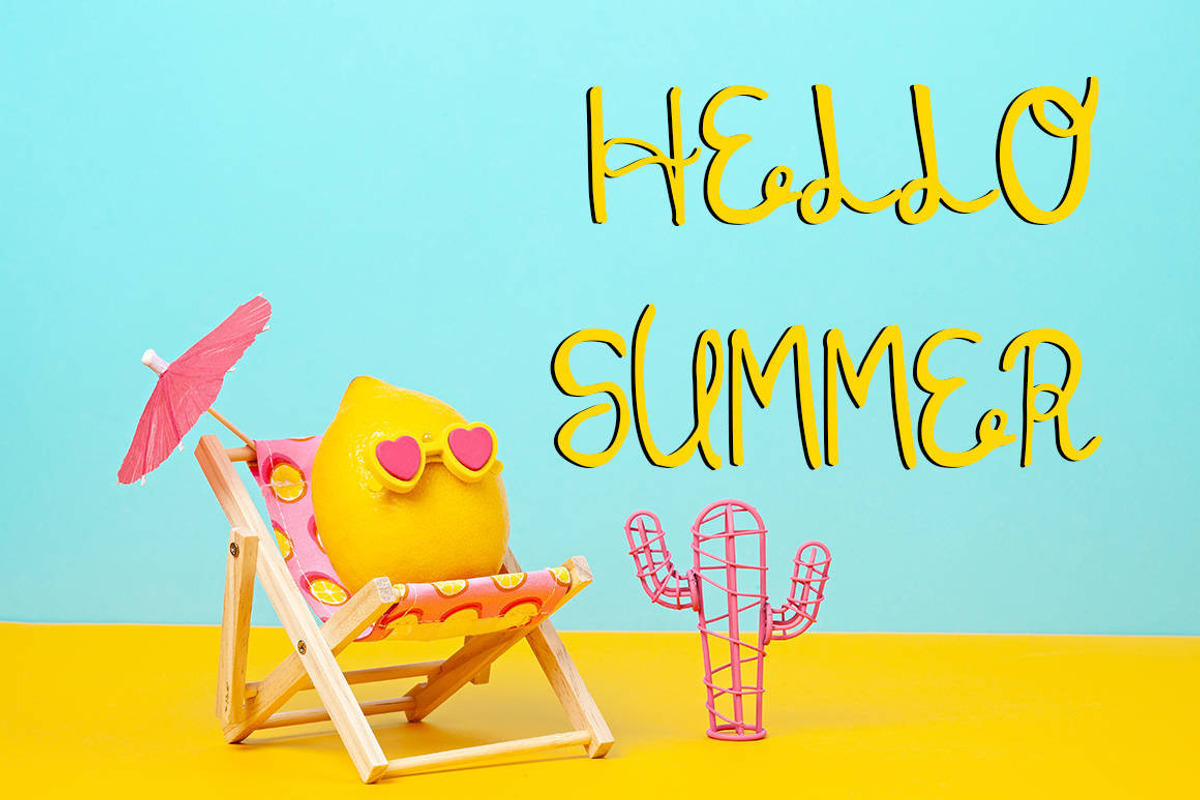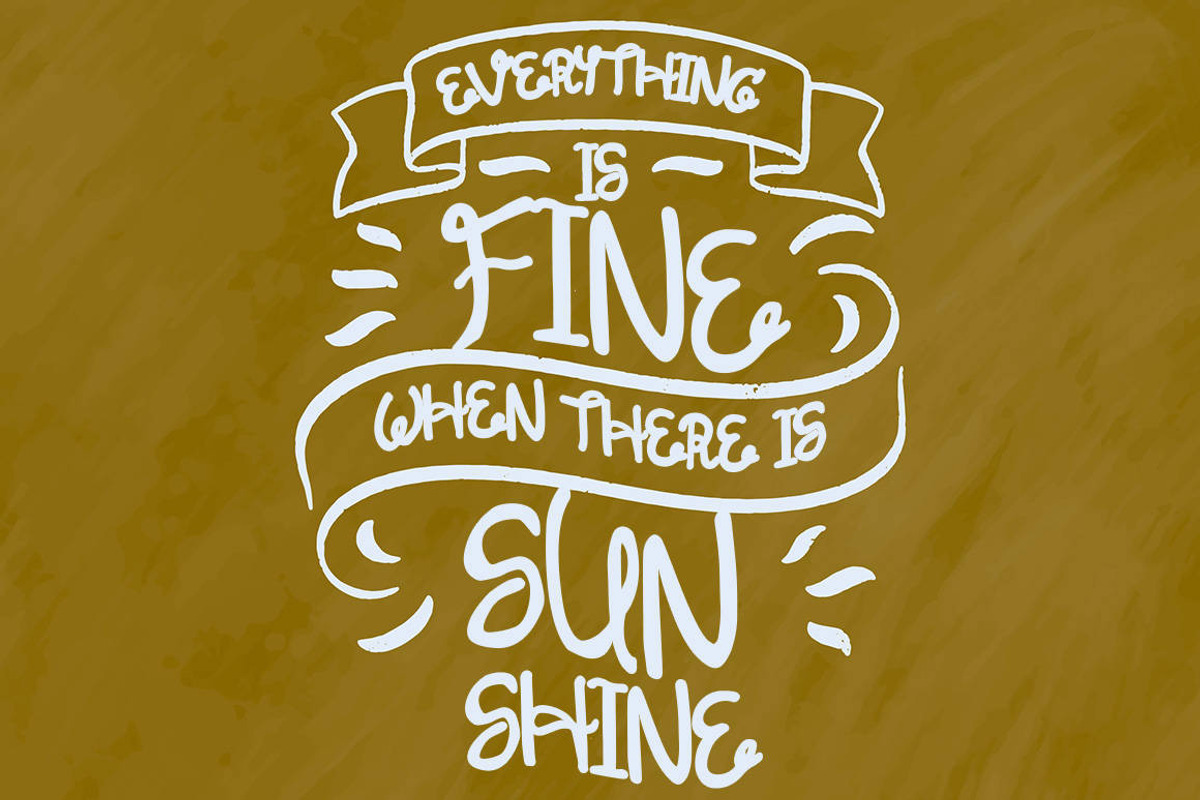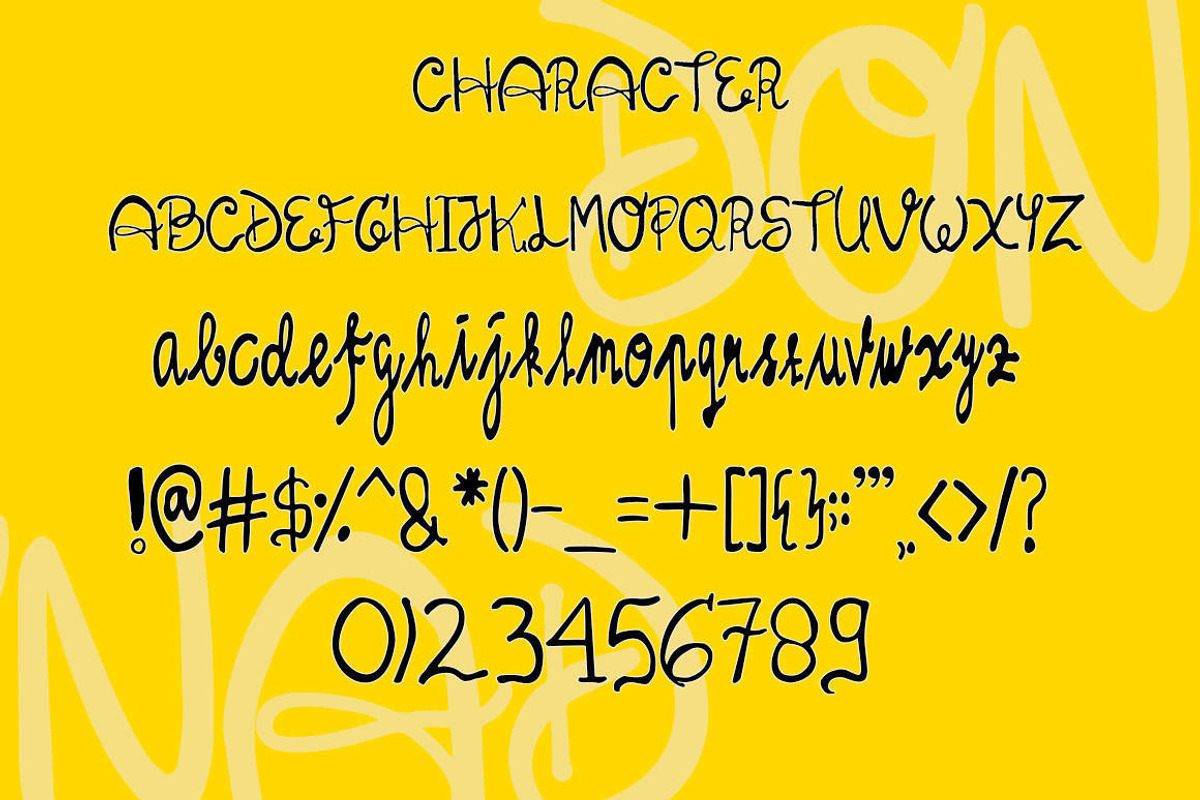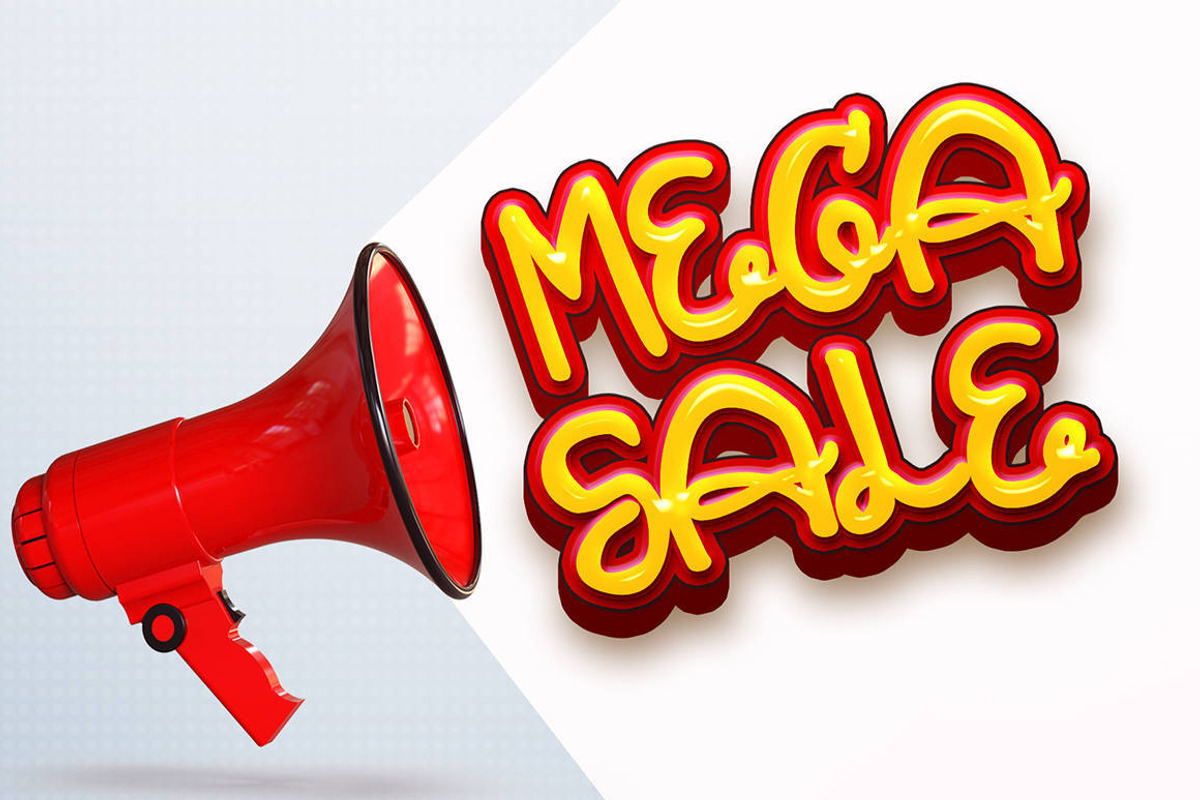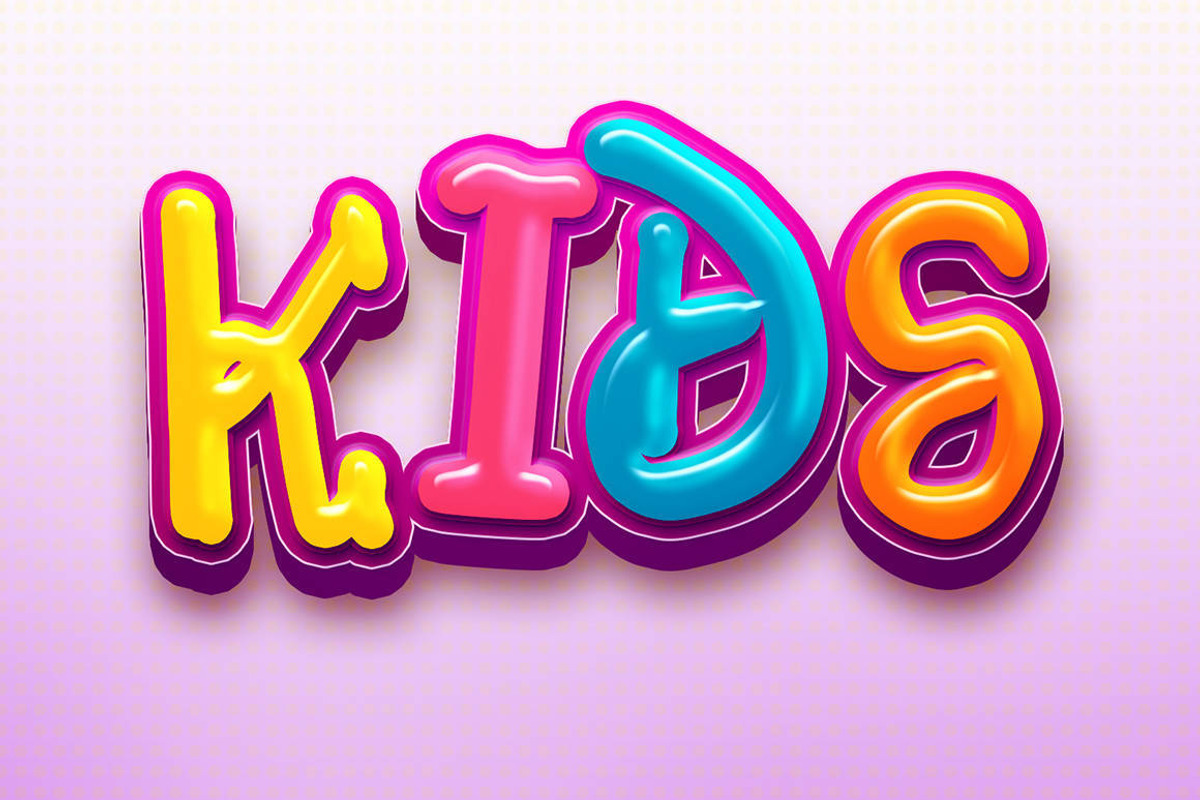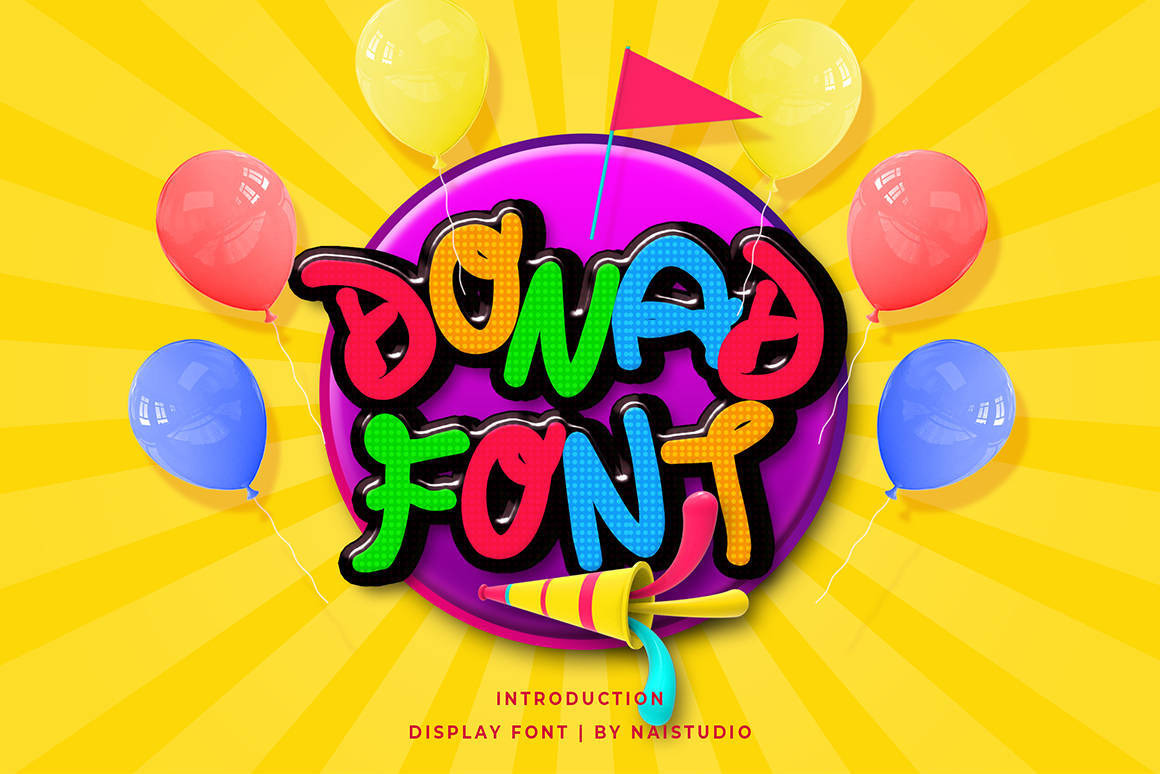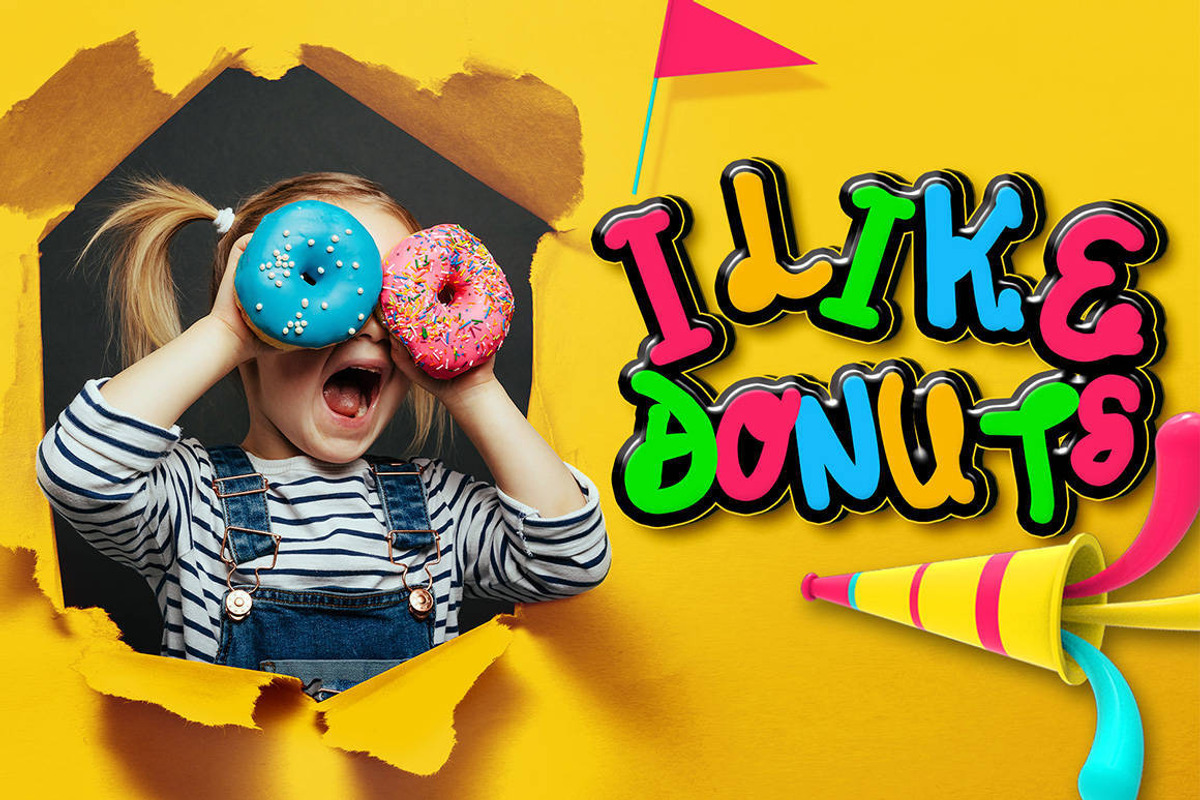
Donad - Cute Handwritten Kids Font
Introducing Donad - Cute Handwritten Kids Font
Donad is a delicate, elegant and flowing handwritten font. It has beautiful and well balanced characters and as a result, it matches a wide pool of designs. Add it to your most creative ideas and notice how it makes them come alive!